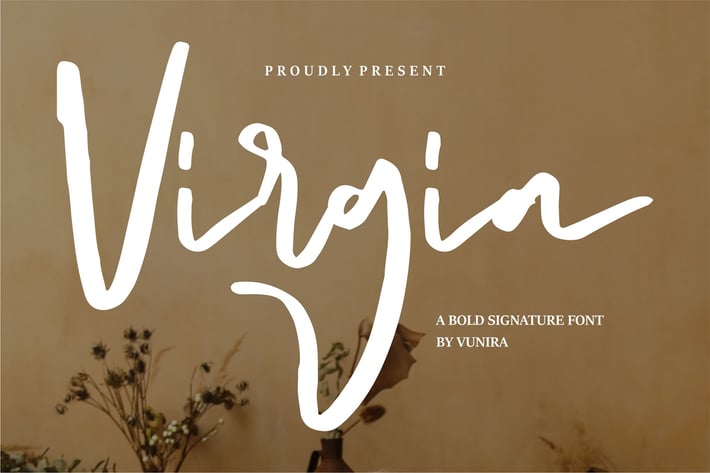
Virgia | A Bold Signature Font
Virgia | A Bold Signature Font with a calligraphy style, So beautiful on invitation like greeting cards, branding materials, business cards, quotes, posters, and more!